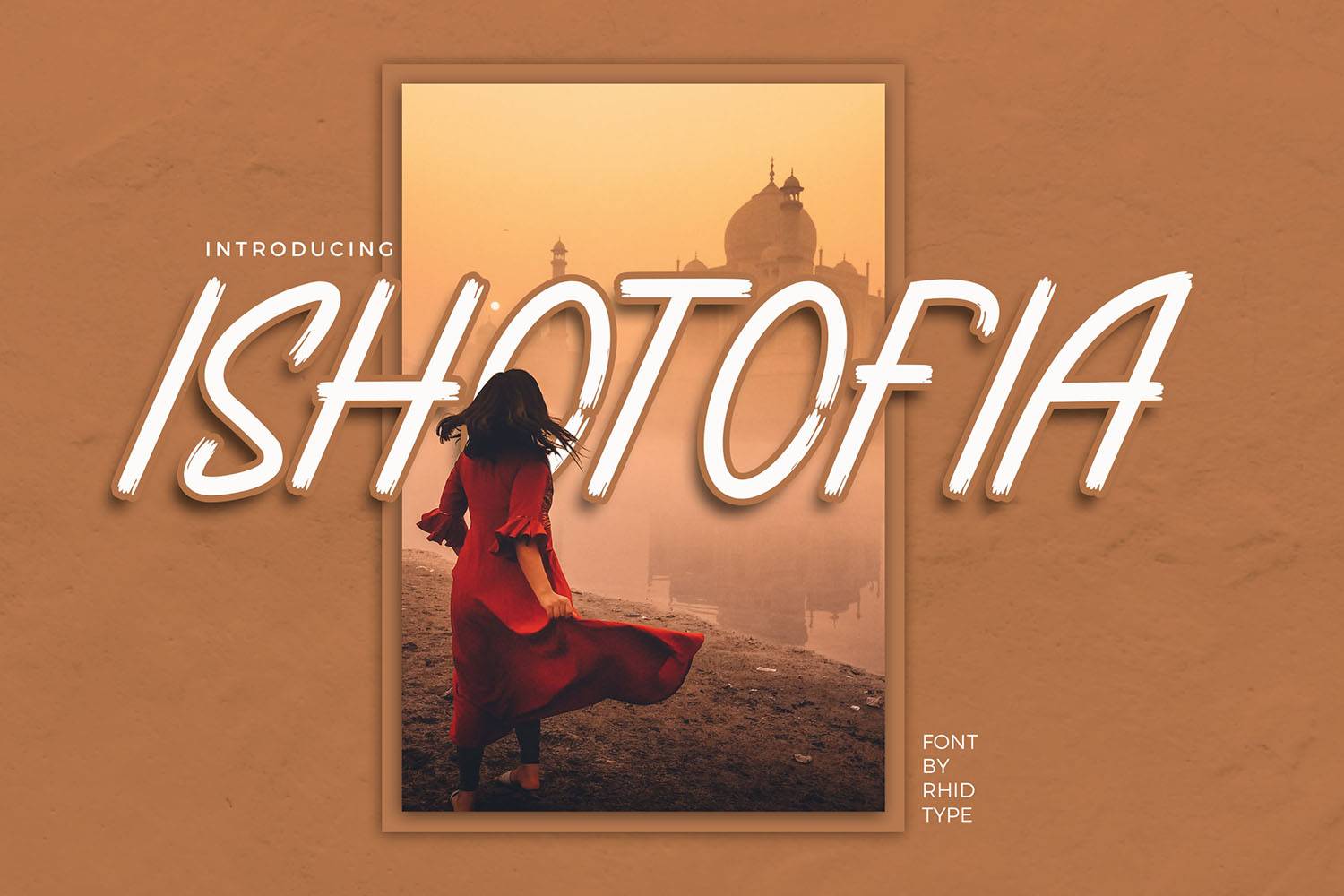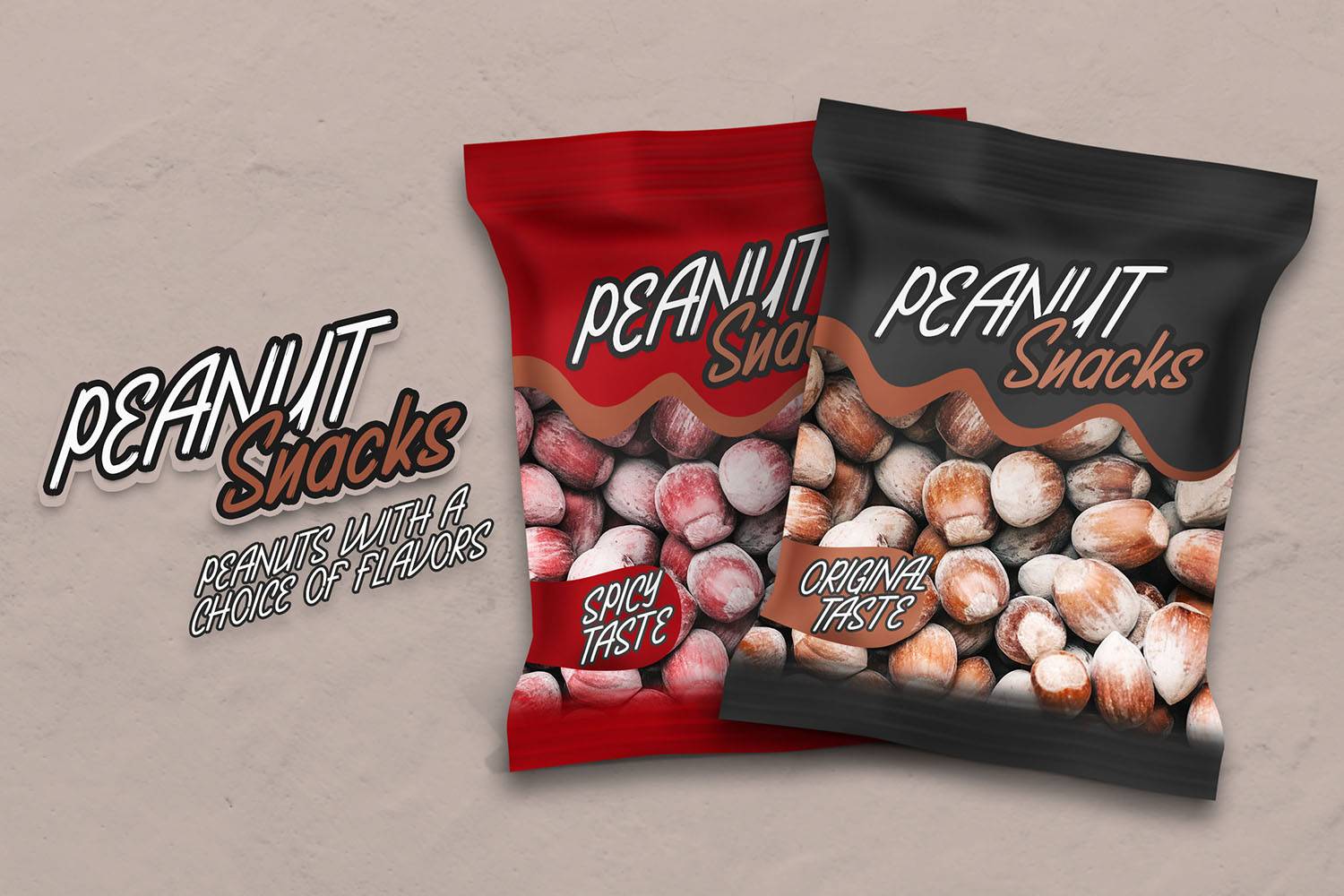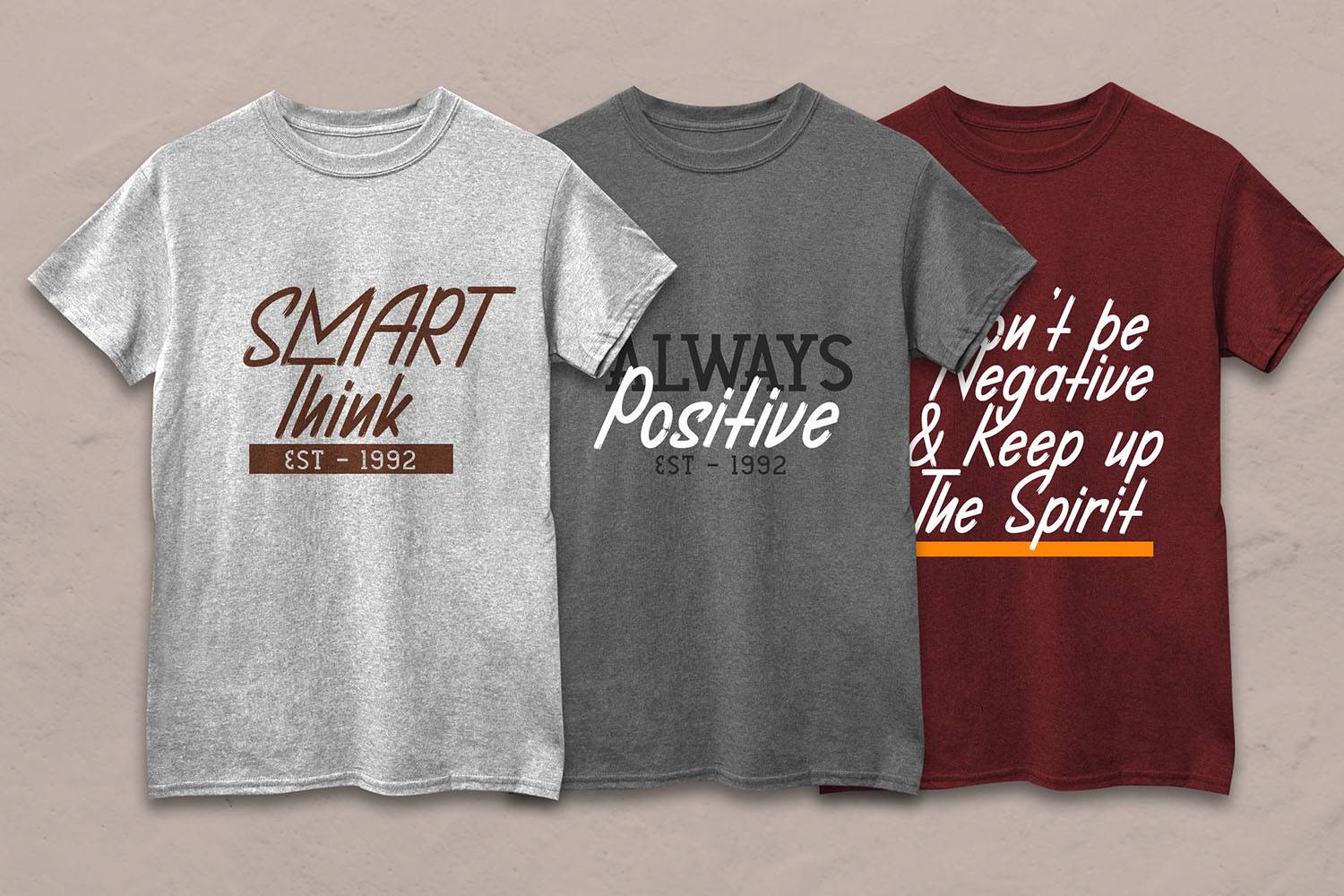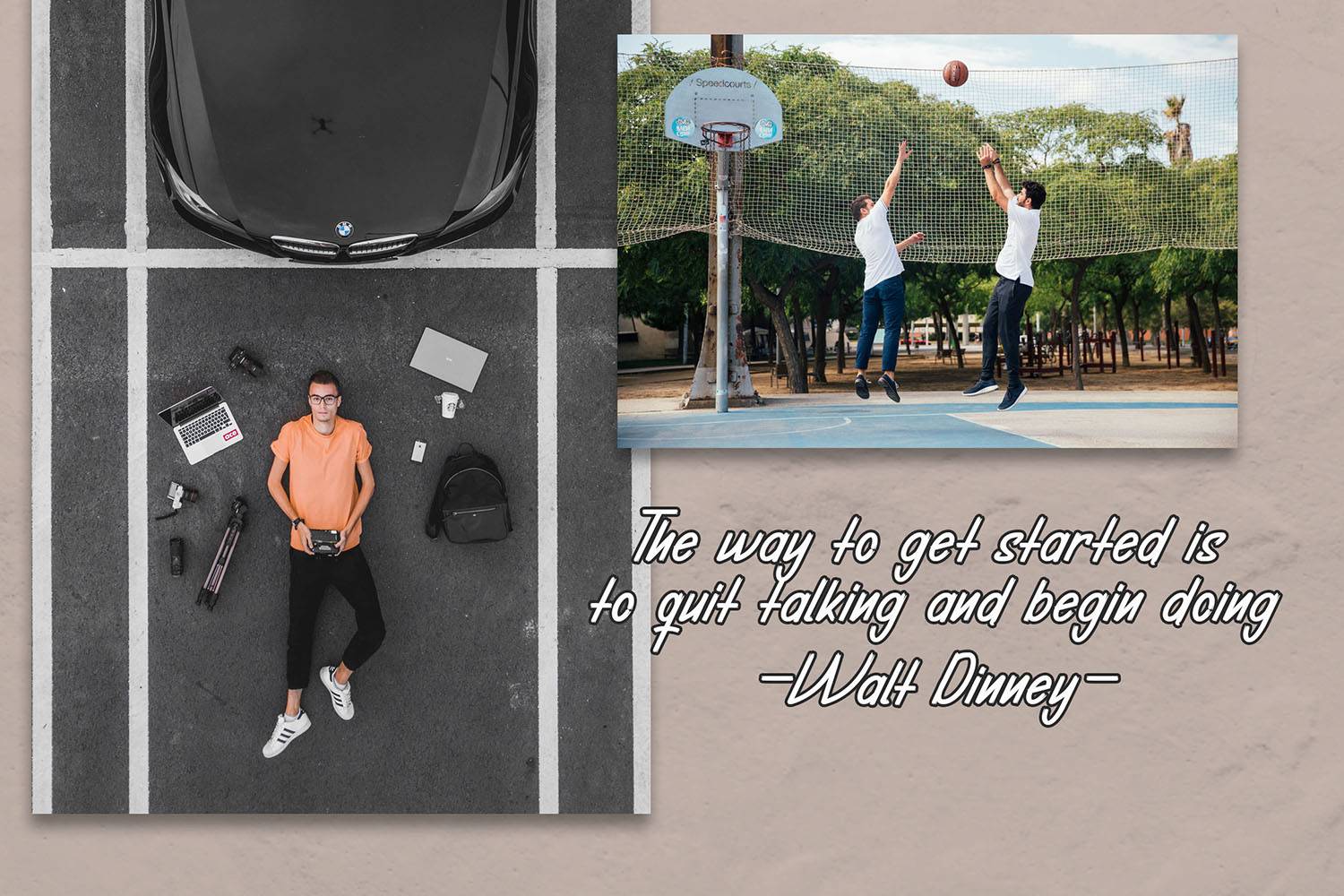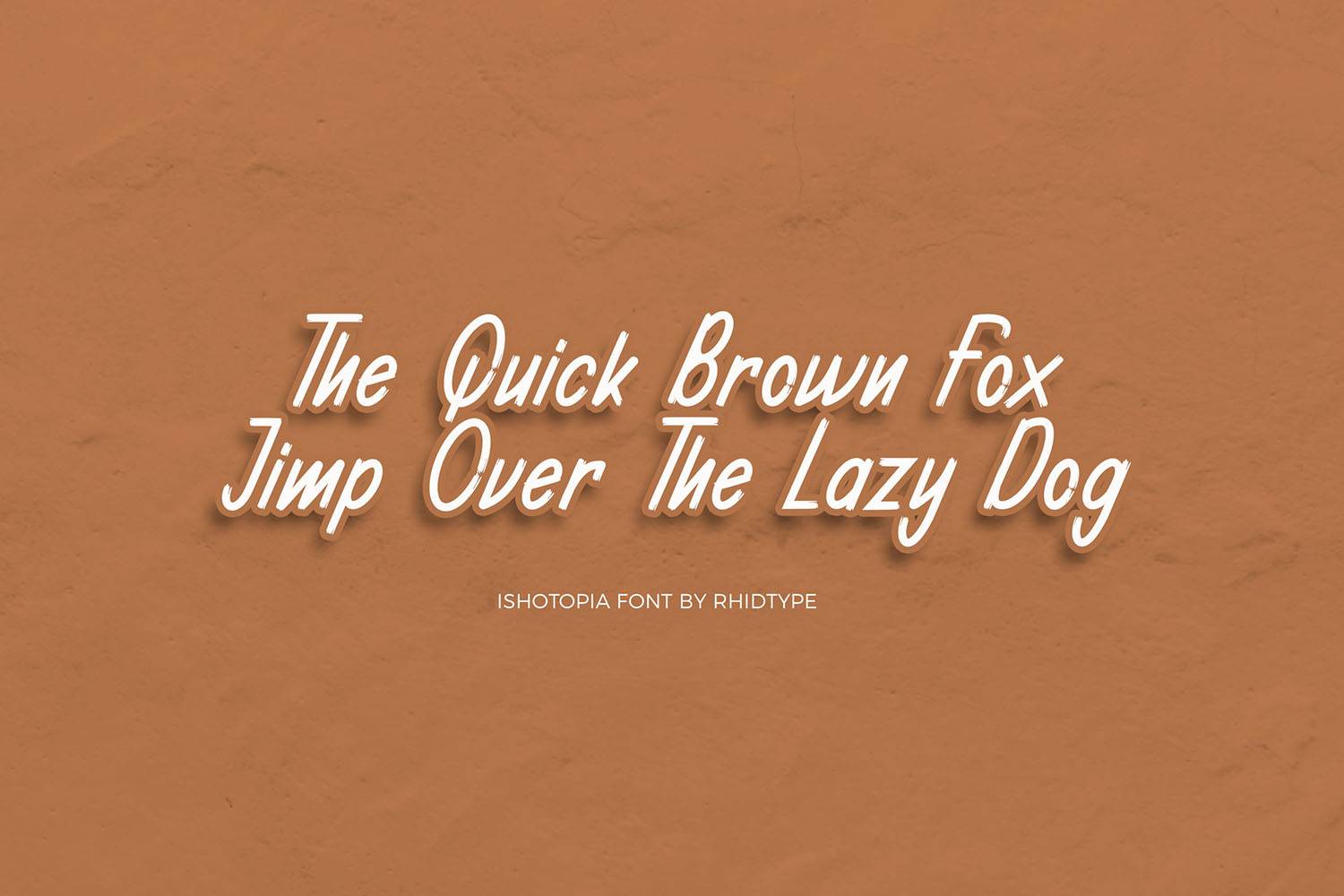
Ishotofia is a dynamic, slanted sans serif font with a lively brush script style that combines sharp, textured strokes and a casual, handwritten feel. Its tall, narrow letterforms and energetic flow make it perfect for creative branding, posters, and eye-catching headlines that want to convey motion and personality. This font works well where a bold, informal, and artistic touch is needed to engage and stand out.
Ishotofia Font
About Ishotofia Font
| Font family | Ishotofia Font |
| Designer | REPI HILMANA |
| Trademark | RHIDTYPE |